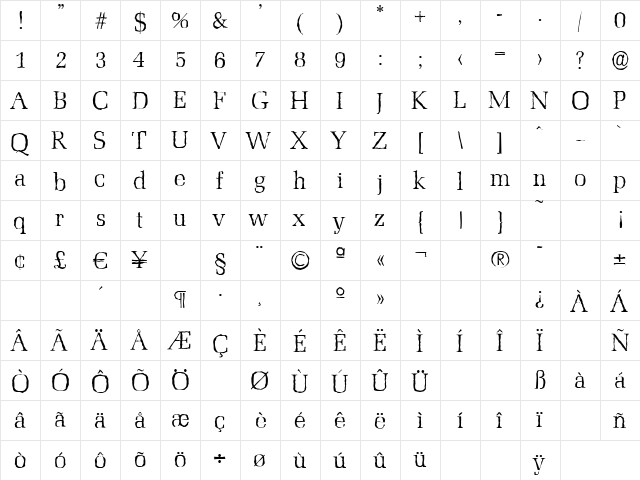
MarseilleAntique-Light Regular
Design Context for MarseilleAntique-Light Typeface
MarseilleAntique-Light wears its vintage influences proudly, with letterforms that recall mid-century signage, classic packaging, and nostalgia-driven design. Its slender proportions lend an understated elegance to any composition.
Ideal for diner signage, record shop branding, 70s/80s-themed projects, and heritage product labels.
Font Pairing: Combine MarseilleAntique-Light with a simple slab or neutral sans — period-accurate companions reinforce the vintage feel without competing for attention.
Pro Tip: Lean into MarseilleAntique-Light's period character by pairing it with aged paper textures, muted colour palettes, and vintage illustration styles.